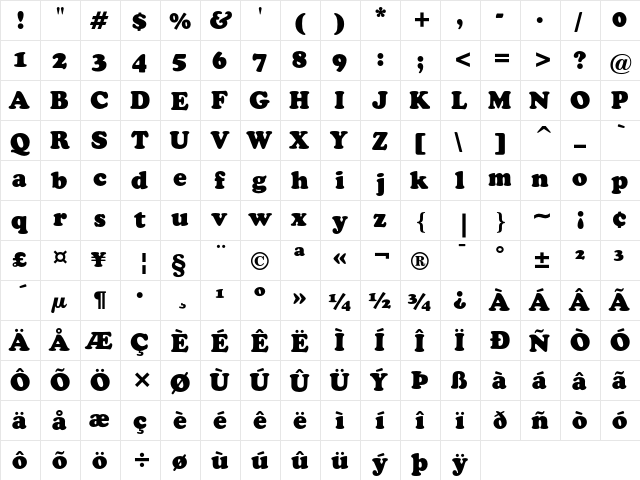
Bitstream Cooper Black Font Preview
Bitstream Cooper Black
Design Context for Bitstream Cooper Typeface
Bitstream Cooper offers clean, dependable letterforms without strong stylistic allegiance, making it a practical choice for designers who need flexibility.
Pro Tip: Use Bitstream Cooper in both headline and body roles to test its range before committing to a single application.